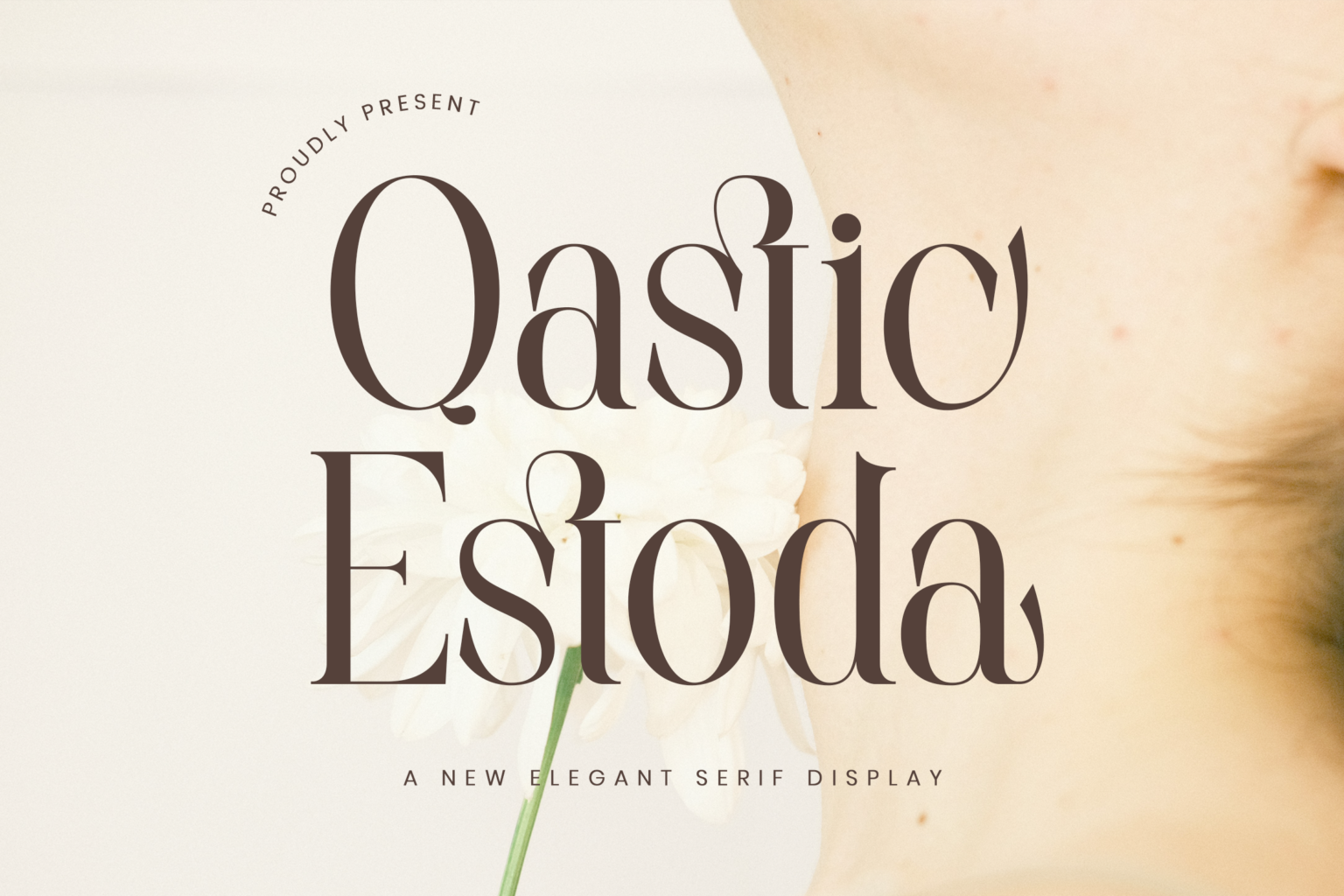
Qastic Estoda – Elegant Serif Font
Qastic Estoda – Elegant Serif Font is a stylish typeface that enhances visual appeal and works effortlessly in many design contexts. Qastic Estoda Stylish Ligature Typeface, inspired by the famous minimalist logo perfect for the purposes of designing templates, brochures, videos, advertising branding, logos and more.